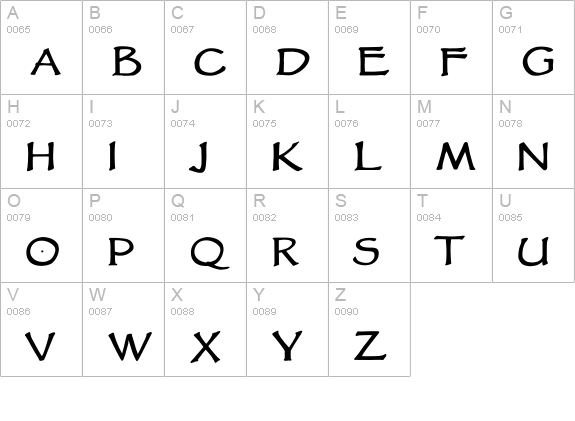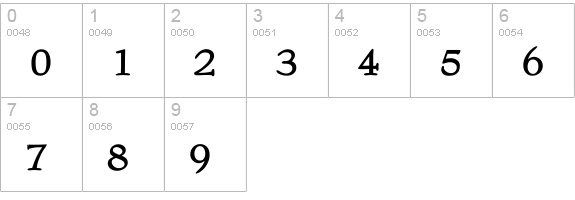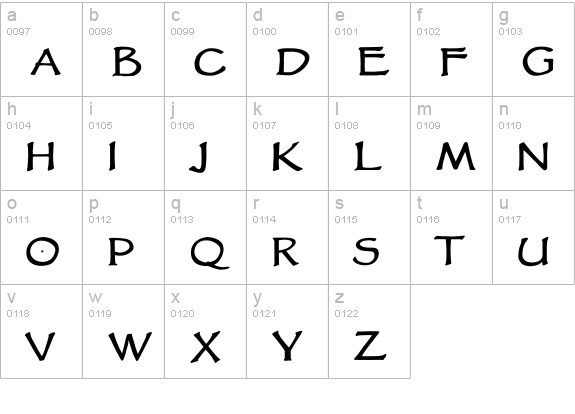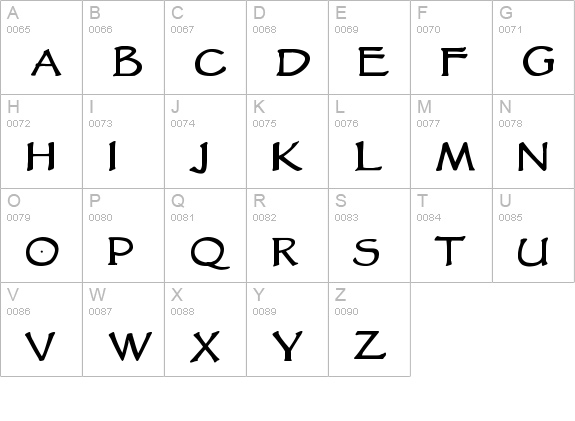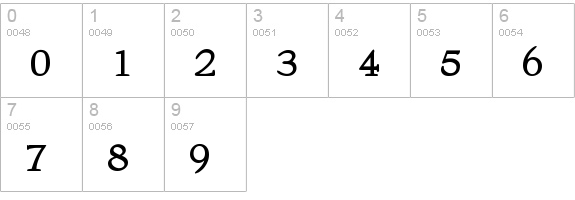
VTCGoblinHandBold Font Details
Introducing VTCGoblinHandBold, a captivating and whimsical font that is sure to add a touch of playful charm to any design project. This unique typeface boasts bold strokes and a distinctively mischievous character, making it perfect for creating eye-catching headlines, posters, and invitations. VTCGoblinHandBold is the epitome of creativity and imagination, with its hand-drawn appearance and quirky letterforms. Every curve and line has been carefully crafted to embody the essence of a mischievous goblin's hand, giving your designs a truly one-of-a-kind look. What sets VTCGoblinHandBold apart is not only its captivating design, but also its accessibility. We believe that creativity should be free to flourish, which is why this extraordinary font is freely available to download at FontsMarket.com. By making it easily accessible, we aim to empower designers and artists to bring their visions to life without any limitations. Whether you're working on a children's book, a playful logo, or a fun website design, VTCGoblinHandBold will undoubtedly bring your projects to life with its charm and character. Its versatility allows it to seamlessly adapt to various themes and styles, making it a must-have addition to any designer's toolkit. So, embrace your inner goblin and let your imagination run wild with VTCGoblinHandBold. Download it for free at FontsMarket.com, and unlock a world of endless creative possibilities.